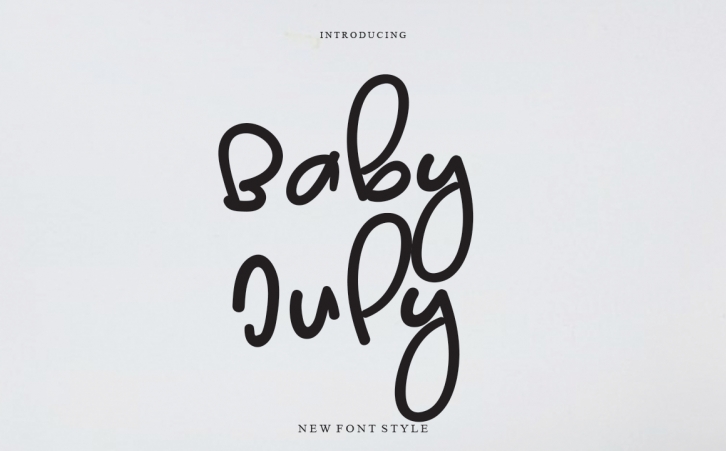
Baby July is a chic and quirky handwritten font. It has a modern yet whimsical style and it will undoubtedly immerse your designs into a magical world.Â